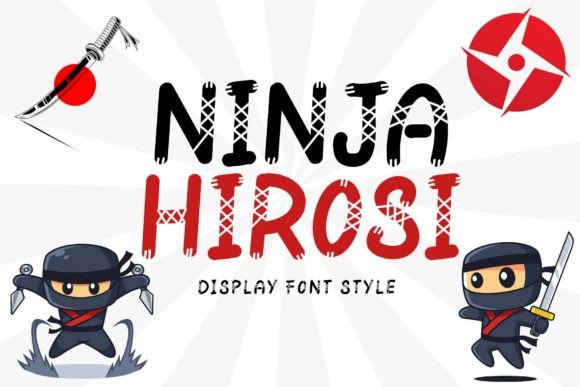
Introducing the extraordinary Ninja Hirosi Font! This font is not your average display font - it's a blend of uniqueness and cuteness that will captivate your imagination. Created by the talented yogaletter6, this font is specifically designed for those who are looking to make a statement with their typography.
With its complete set of uppercase, lowercase, numerals, punctuation, and multilingual support, Ninja Hirosi Font offers endless possibilities for your creative projects. Whether you're designing comic strips, book titles, promotional materials, or even revamping your business branding, this font has got you covered.
Are you tired of using the same old generic fonts that everyone else is using? Stand out from the crowd with Ninja Hirosi Font! Its playful and eye-catching style will instantly grab attention and leave a lasting impression on your audience. Embrace the power of visual storytelling and watch as your designs come to life.
Imagine the impact of using Ninja Hirosi Font in your marketing materials. Picture vibrant banners that demand attention, captivating logos that reflect your brand's personality, and film titles that leave viewers in awe. This font is not just a tool, but a catalyst for creativity and innovation.
But it doesn't stop there. Ninja Hirosi Font is perfect for all your personal projects too. Add a touch of charm to your scrapbooking, create stunning stickers that people can't resist, or even make personalized banners for special occasions. Let your imagination run wild and explore the endless possibilities that this font offers.
Don't settle for ordinary when you can have extraordinary. Ninja Hirosi Font is here to elevate your designs and take them to new heights. It's time to break free from the limitations of generic fonts and embrace the power of self-expression.